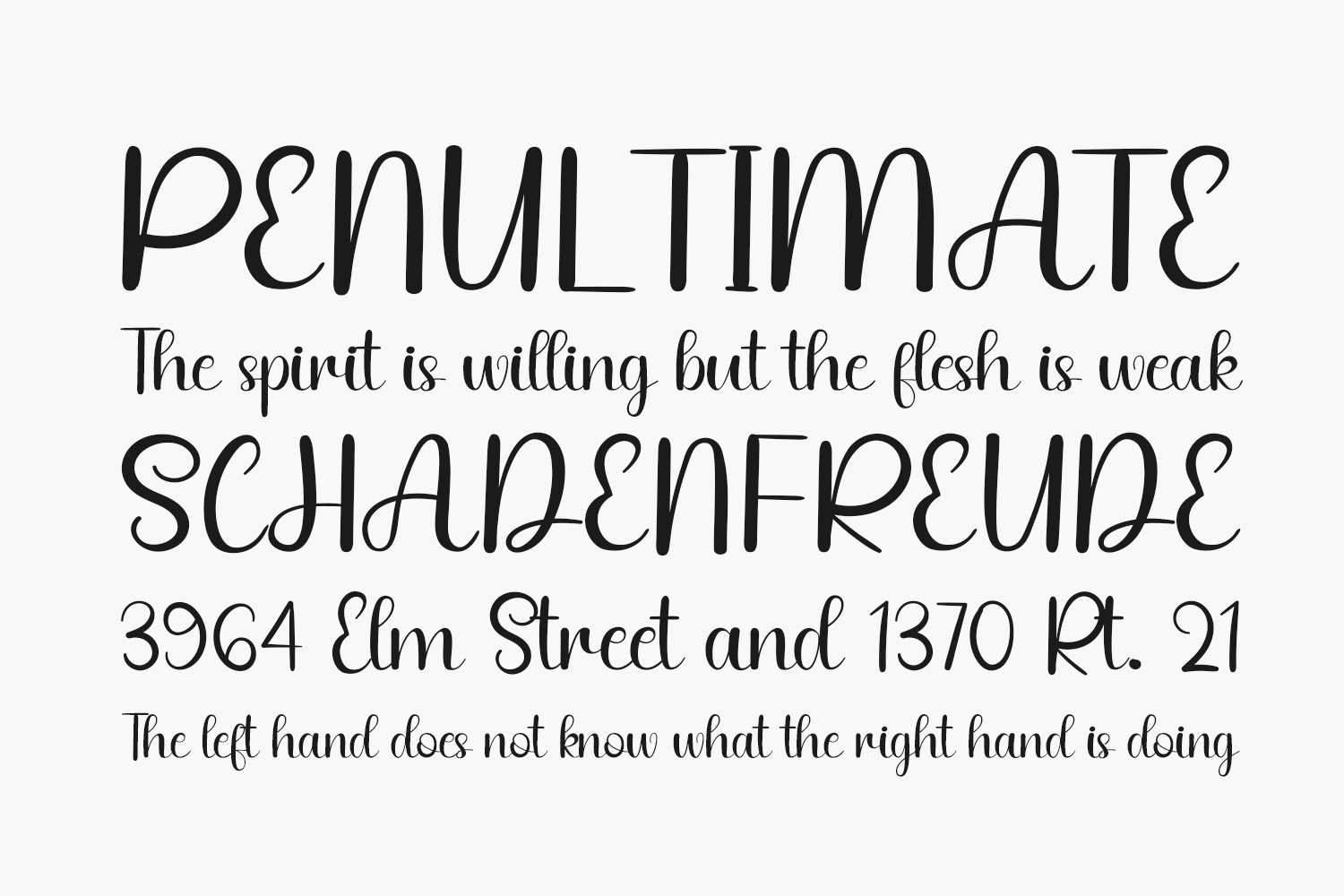
Flash Free Font is a sweet handwritten font that was crafted with great care to produce the expected results. This font can be used to write various kinds of products according to their individual needs. Flash Free Font is free for personal use only. Please purchase the full version for commercial use.